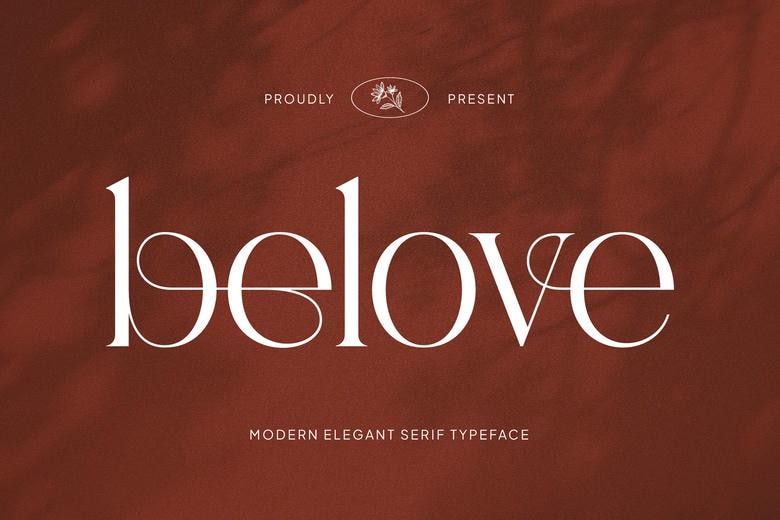
Belove Font
Belove is a modern, elegant serif typeface that brings a refined and sophisticated look to your creative projects. It is designed to balance beauty with readability, making it a great choice for luxury branding, editorial layouts, fashion campaigns, wedding designs, and premium packaging.
If you are working on a brand identity, a magazine headline, or an elegant invitation, Belove brings charm, elegance, and a modern touch to your design.
Belove Serif Font